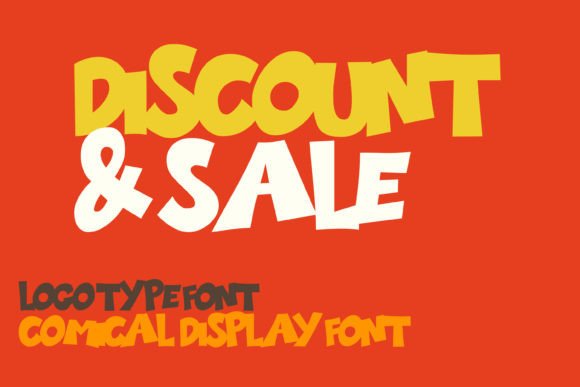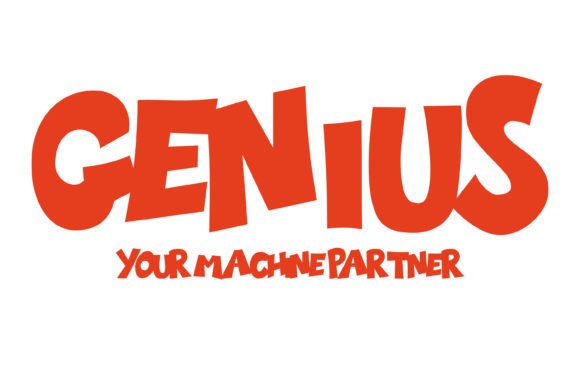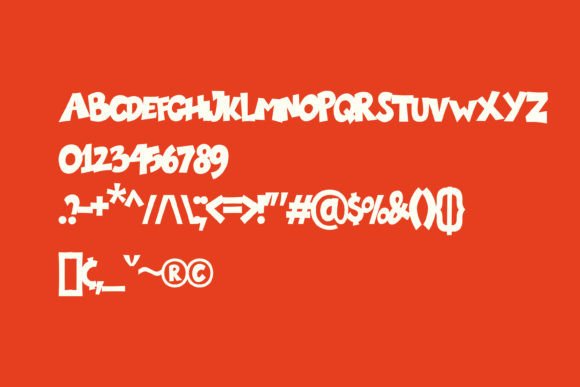
Have you ever stared at a blank page, trying to come up with the perfect idea, only to be inspired by a simple yet striking font? For many designers, this is a familiar moment that can spark creativity and bring a project to life. The right font can elevate a message, add personality to a brand, and make a lasting impression on your audience.
Enter the Gologotypego Font, a fun and playful display font that’s sure to add a touch of whimsy to any creation. Whether you’re designing a logo, a social media campaign, or a marketing brochure, this versatile font has the potential to take your project to the next level. As a valuable addition to any designer’s library, the Gologotypego Font is a must-have for anyone looking to add a little extra flair to their work.
Gologotypego Font Key Features
- Font Family: Gologotypego is a unique, display font designed for headings and titles.
- Unique Characteristics: Gologotypego features a distinctive, hand-drawn feel with a mix of serif and sans-serif elements, giving it a modern and eye-catching appearance.
Gologotypego Font Review
At first glance, the Gologotypego font may seem like a quirky, unique addition to any design project. I have to admit, I was drawn in by its playful and eclectic feel. ✨ The font’s irregularity adds a touch of personality that can elevate a design from mundane to eye-catching.
Here are some of the things that I think work well in the Gologotypego font:
- ✨ Unconventional style that can add character to a design
- ✨ Versatility in terms of font sizes and line heights
- ✨ Suitable for creative industries such as art, fashion, or entertainment
- ⚠️ May not be suitable for formal or professional settings
- ⚠️ Can be difficult to read in smaller font sizes
Overall, the Gologotypego font is a fun and creative addition to any design project. While it may not be the best choice for every situation, it can add a unique touch to the right design. I would recommend it for projects that require a playful, artistic feel.
For a professional look, use the font in combination with a clean background and minimal design elements.
For a unique look, experiment with layering and combining different font styles and colors.
For a polished look, use the font consistently throughout your presentation or document.
The Gologotypego Font is perfect for:
- Custom logos and branding
- Restaurant and cafe menus
- Event invitations and signage
- Advertising and promotional materials
Remember to experiment with different font sizes, colors, and combinations to get the most out of the Gologotypego Font.
Alternatives to Gologotypego Font for Designers
The Great Vibes Font is a modern, elegant script font ideal for creating a sense of sophistication and luxury. It is perfect for use in branding, invitations, and other design elements where a touch of elegance is required.
Compared to Gologotypego Font, Great Vibes Font has a more refined and polished look, making it suitable for high-end designs. It lacks the quirky, handwritten feel of Gologotypego Font, but offers a more sophisticated alternative.
The Dancing Script Font is a beautiful, flowing script font that adds a touch of whimsy and playfulness to any design. It is perfect for use in creative projects, such as advertising, social media, and editorial design.
Compared to Gologotypego Font, Dancing Script Font has a more fluid and dynamic feel, making it suitable for designs that require a sense of energy and movement. It lacks the bold, geometric feel of Gologotypego Font, but offers a more elegant and refined alternative.